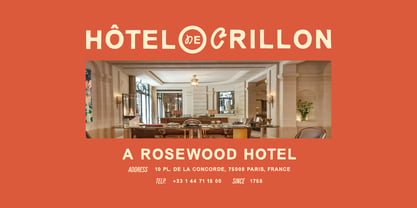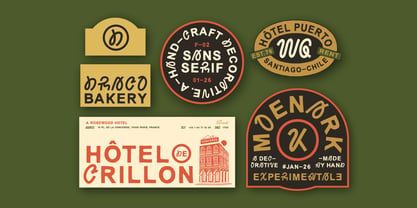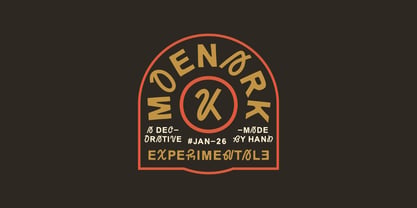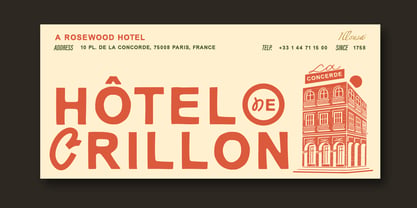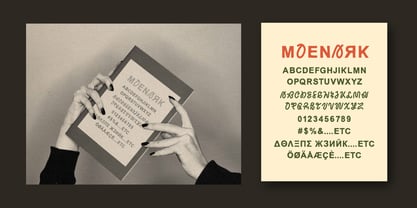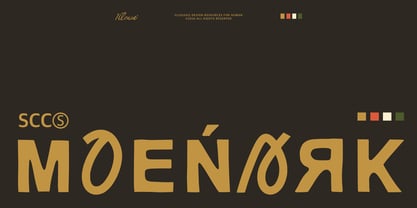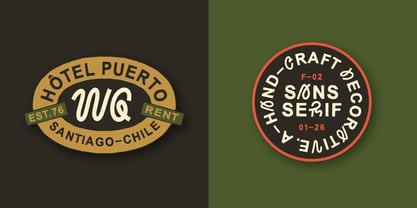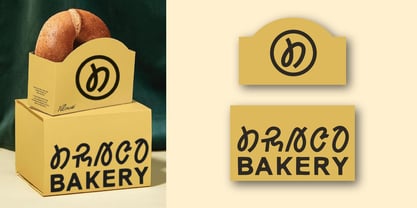
SCC Moenark
by Illousa Supply Co
The SCC Moenark Font Family was designed by Ilham Afrora and published by Illousa Supply Co. SCC Moenark contains 1 styles. More about this family
INTRODUCTION | SCC – MOENARK A Decorative Sans-Serif / 2-in-1 Hybrid Display Font Bring the perfect balance of artistic expression and modern simplicity to your designs. SCC Moenark is a breakthrough hybrid font created for designers and creators who dare to stand out. This unique typeface seamlessly combines bold, decorative uppercase characters with clean, minimalist sans-serif lowercase letters, delivering exceptional versatility within a single font. Crafted with an organic, hand-drawn approach, SCC Moenark introduces a strong “human feel” to digital typography—an aesthetic direction that continues to define modern design trends for 2026. Whether you are developing a luxury brand identity, designing editorial layouts, or creating expressive visual content, this font adapts effortlessly to both artistic and professional needs. SCC Moenark’s innovative 2-in-1 hybrid system allows you to switch easily between expressive decorative headlines and readable sans-serif body text simply by using uppercase and lowercase characters. Every stroke is meticulously drawn by hand, ensuring an authentic, non-digital appearance that adds character and depth to your work. Designed for global creators, SCC Moenark supports more than 250 languages and includes over 300 carefully crafted glyphs, complete with alternates and symbols. This extensive character set gives your typography a polished, custom-made feel while maintaining consistency across multilingual projects. To maximize value and enhance your workflow, along with bonus professional logo templates to help kick-start your branding projects. A detailed license description and a read-me file are also included to guide you through installation and usage. SCC Moenark is perfectly suited for luxury branding and visual identities, social media content and aesthetic quotes, product packaging such as bakery, cosmetics, wine, and coffee brands, modern wedding invitations, as well as website headers and editorial layouts.
Designers: Ilham Afrora
Foundry: Illousa Supply Co